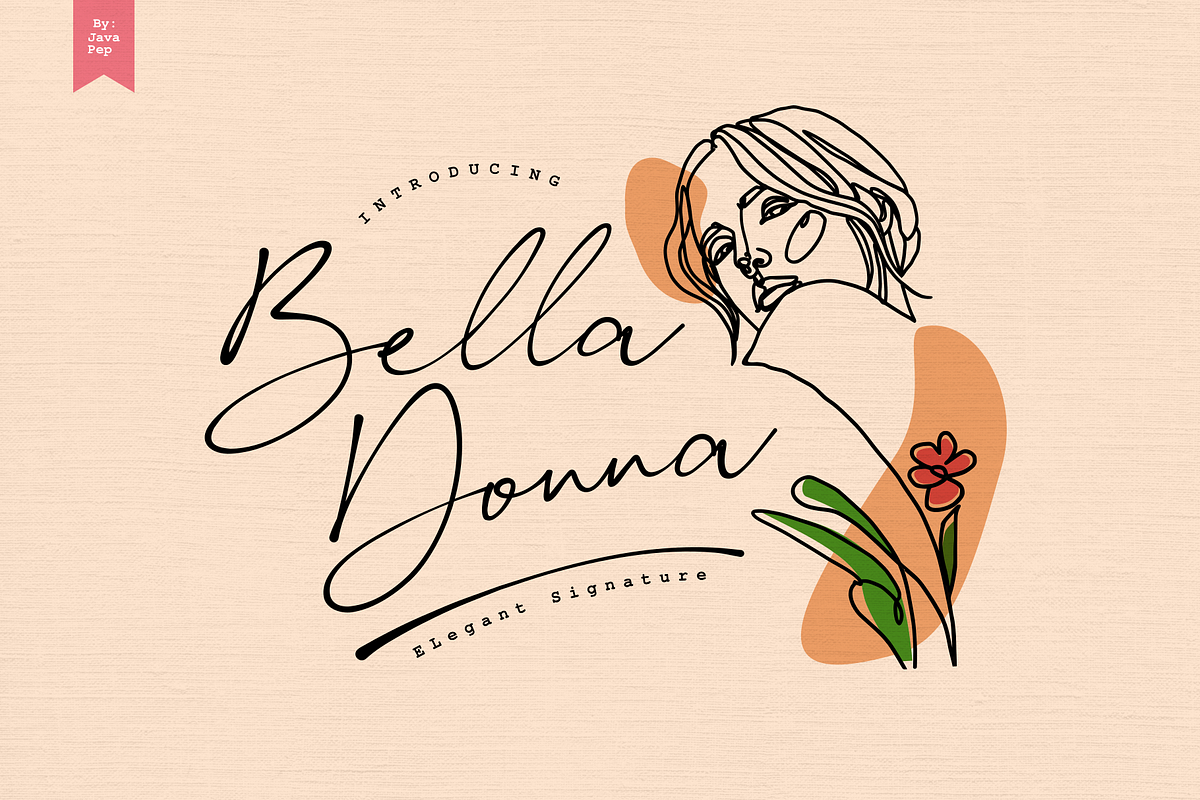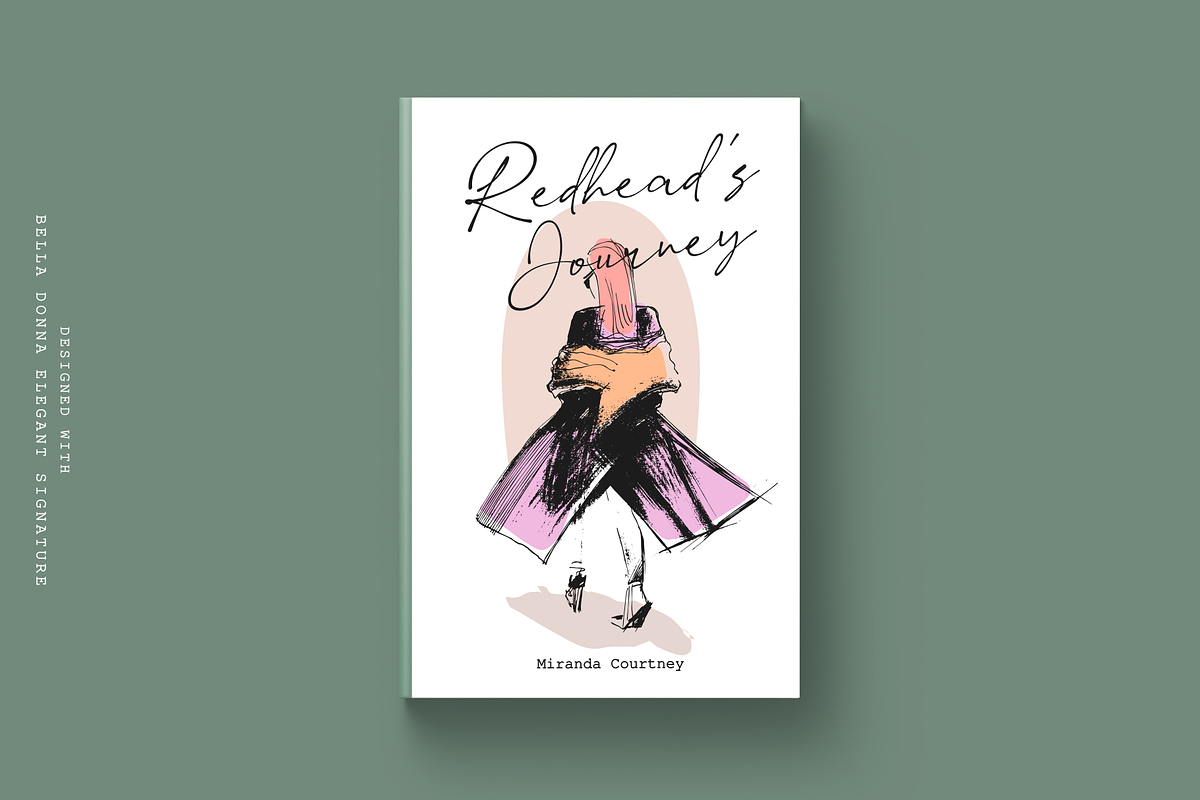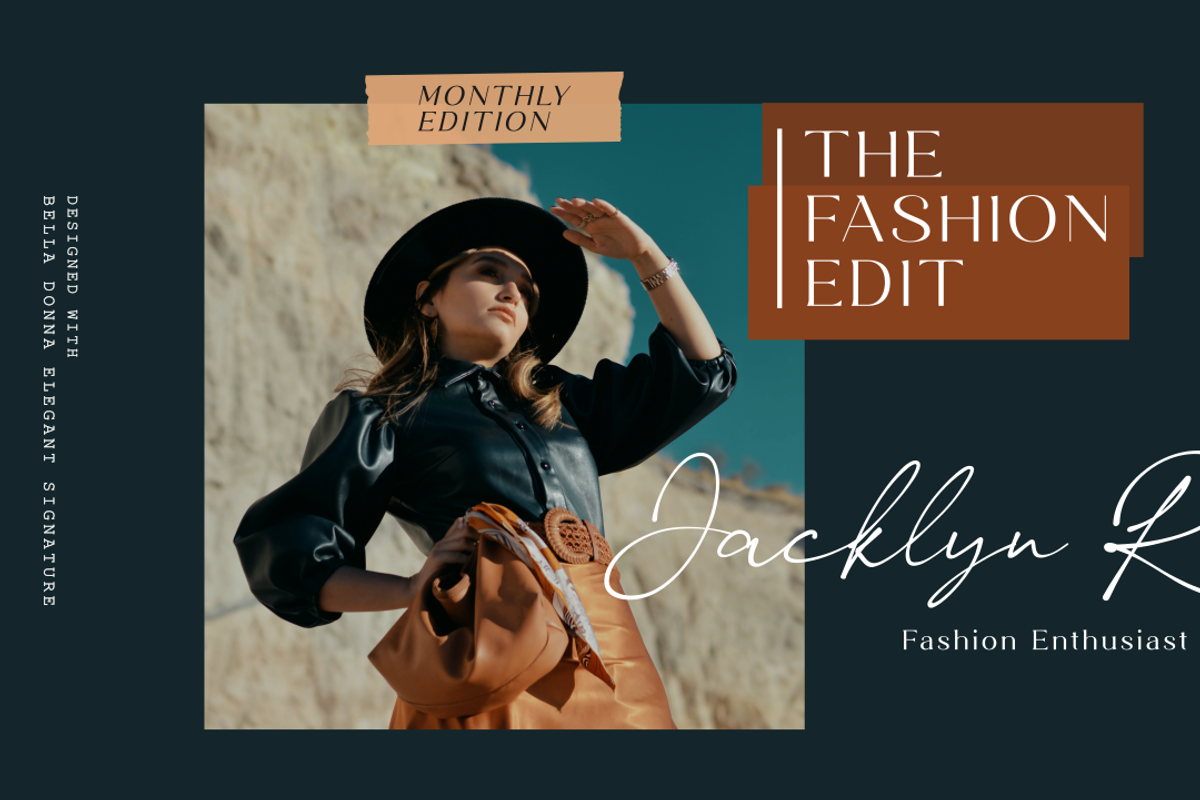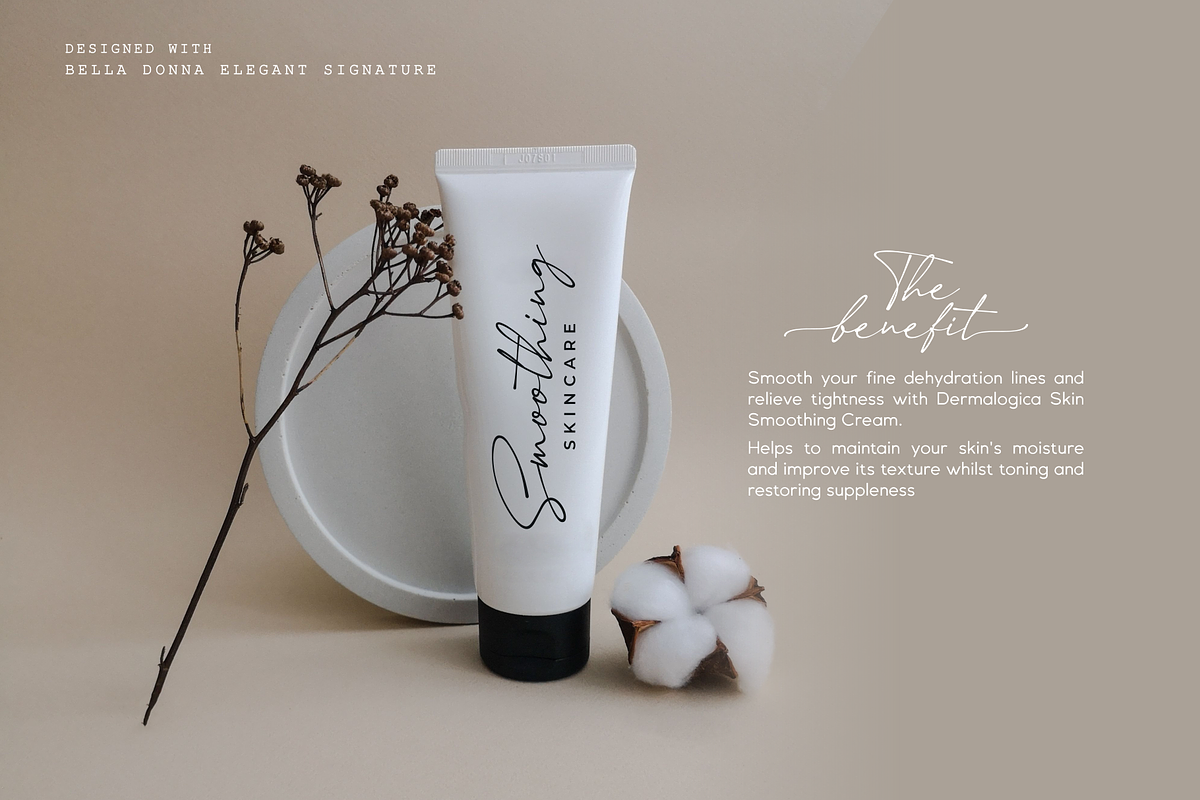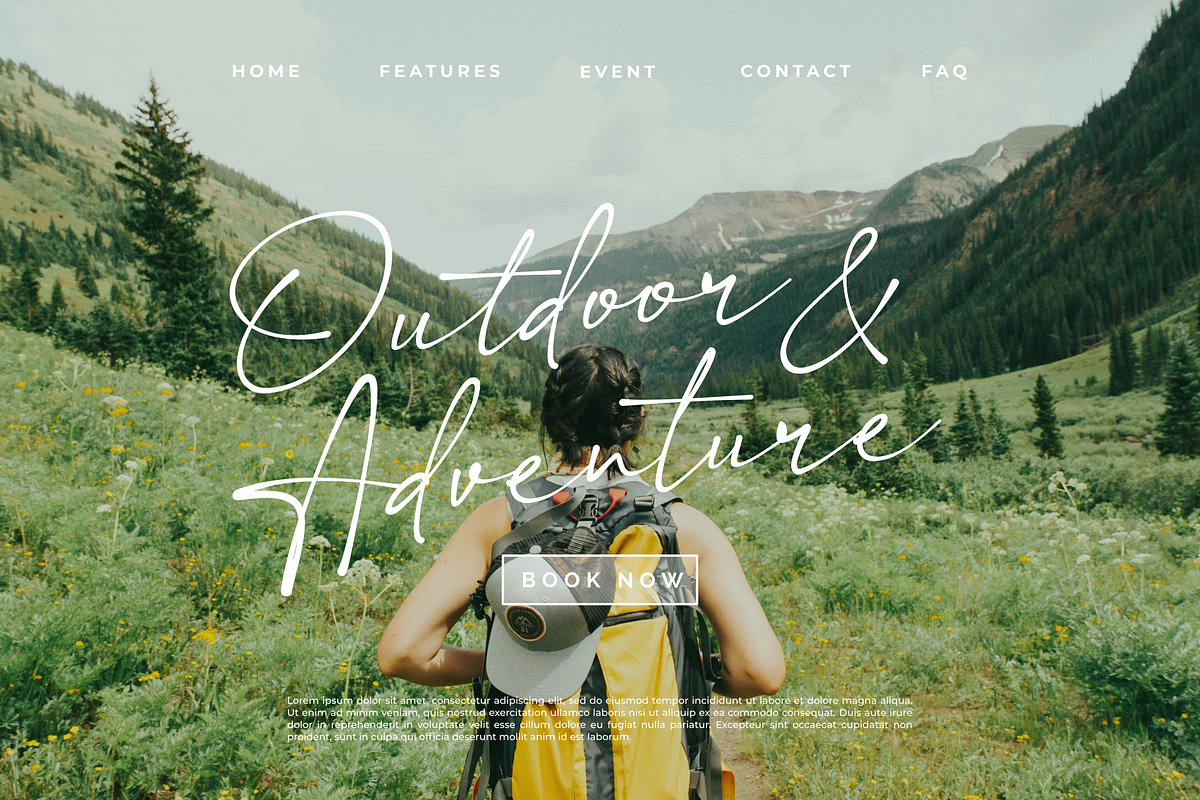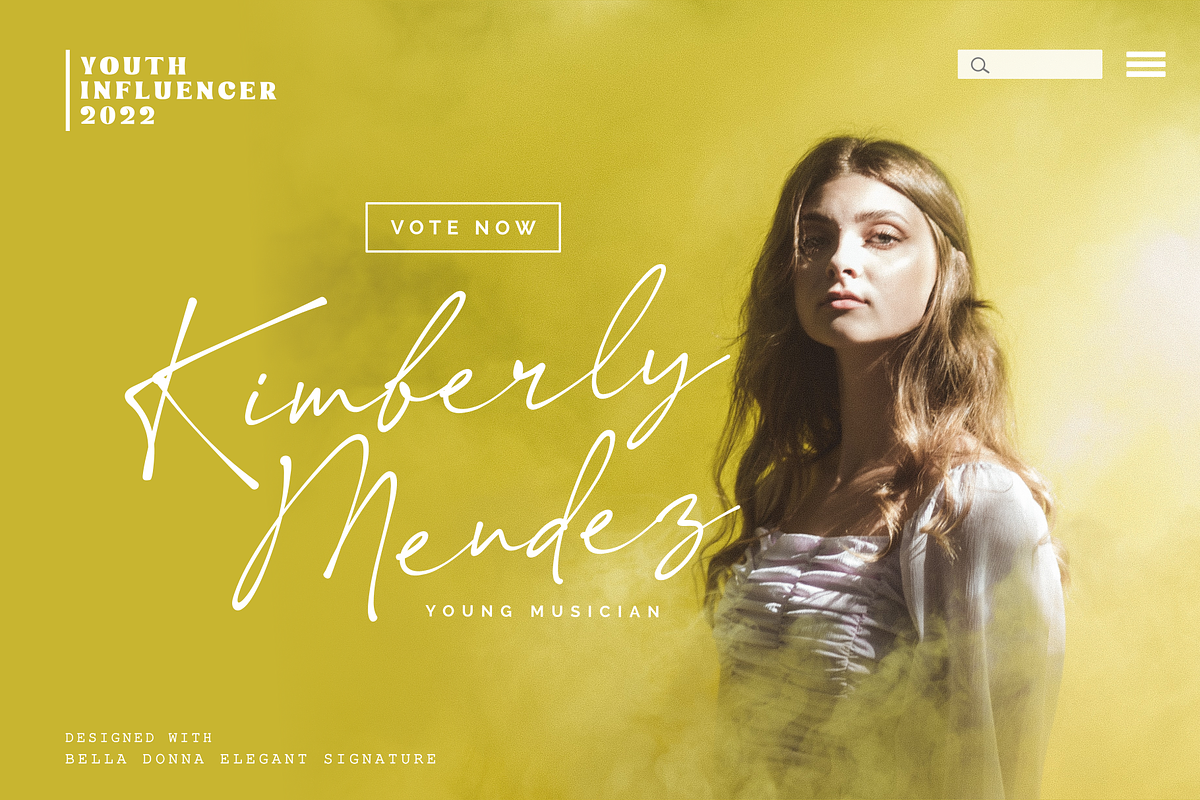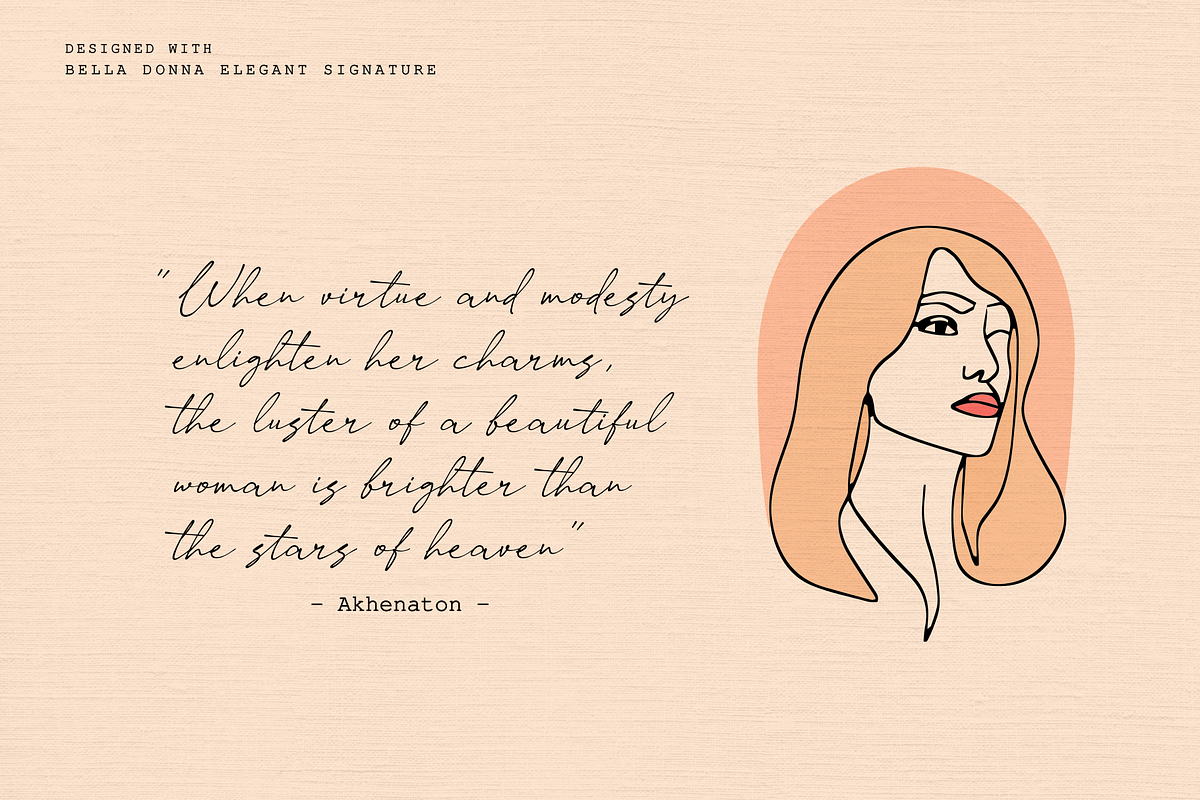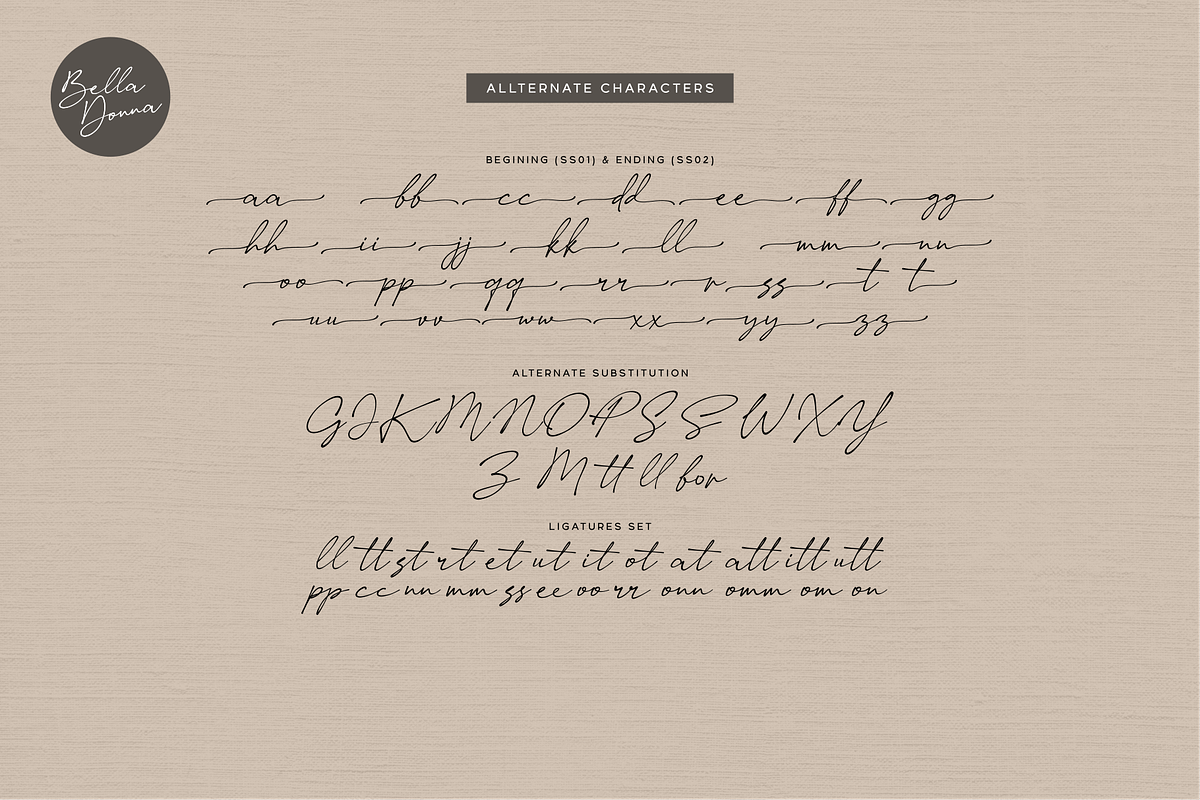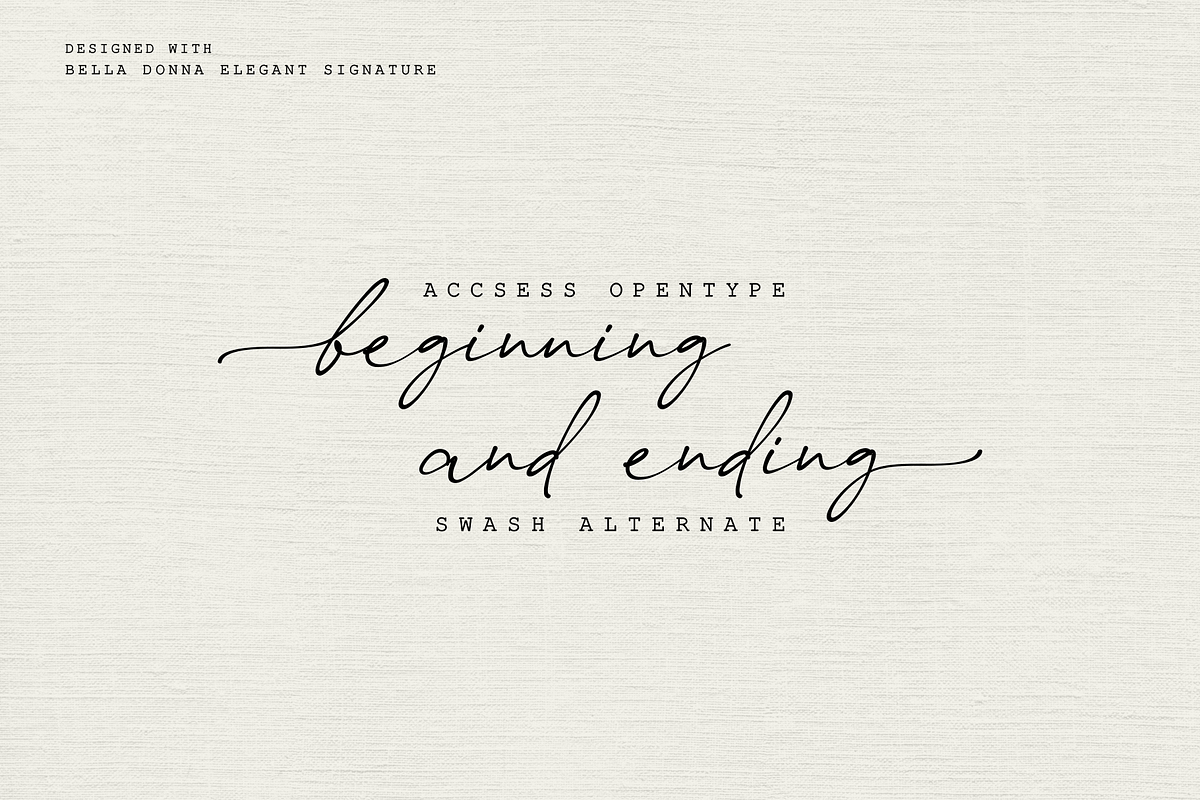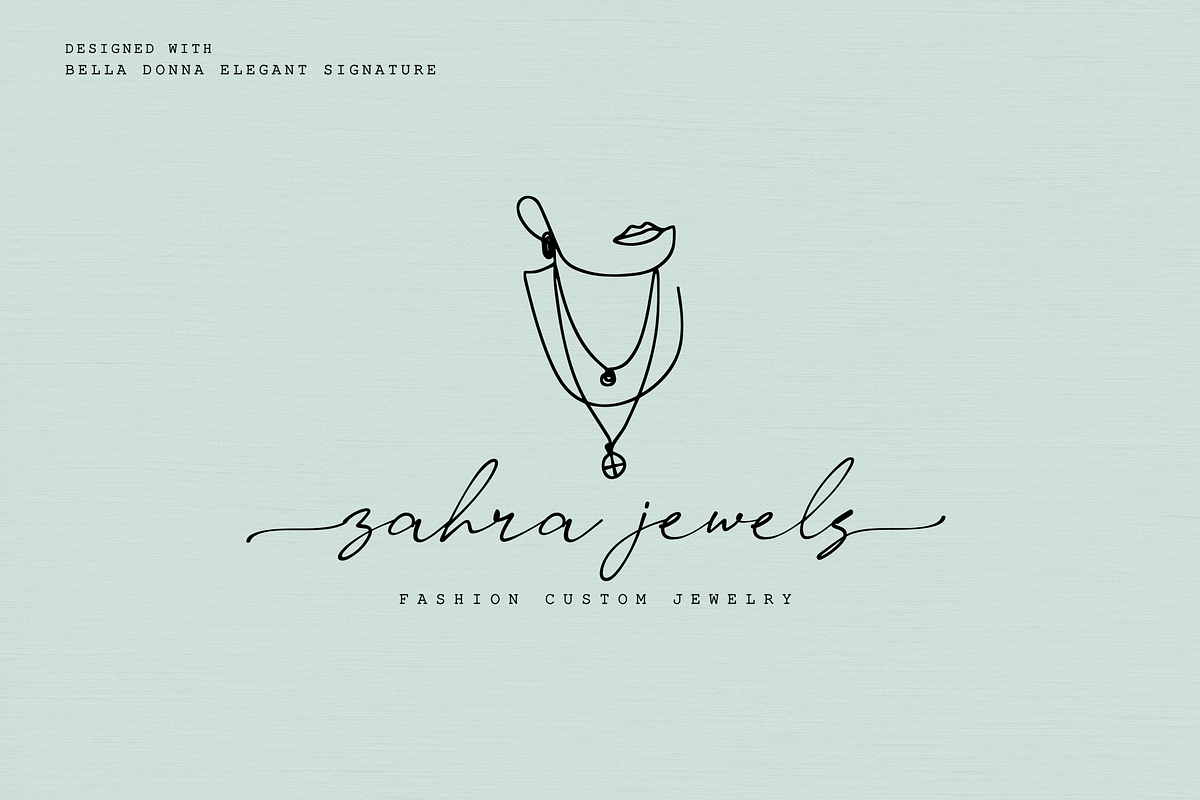
Bella Donna / Elegant Signature
Proudly present Bella Donna is the elegant signature font. Bella Donna comes with opentype features such alternate set, beginning and ending swash, and ligatures set. This font also come with two weight regular and bold, you can switch it. Bella Donna is perfect for branding, logo font, qoute text, wedding invitations, advertising, publishing, headline text, and etc.
- Multilingual Support more than 30 leanguges